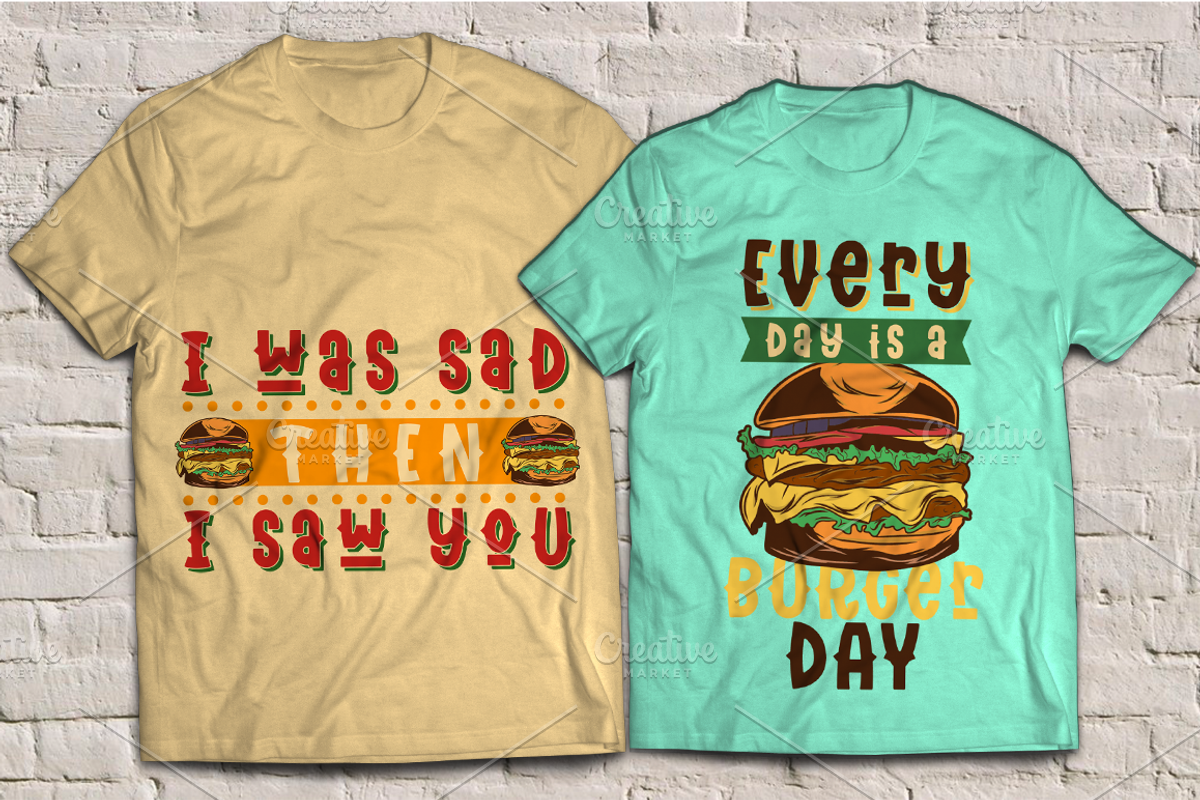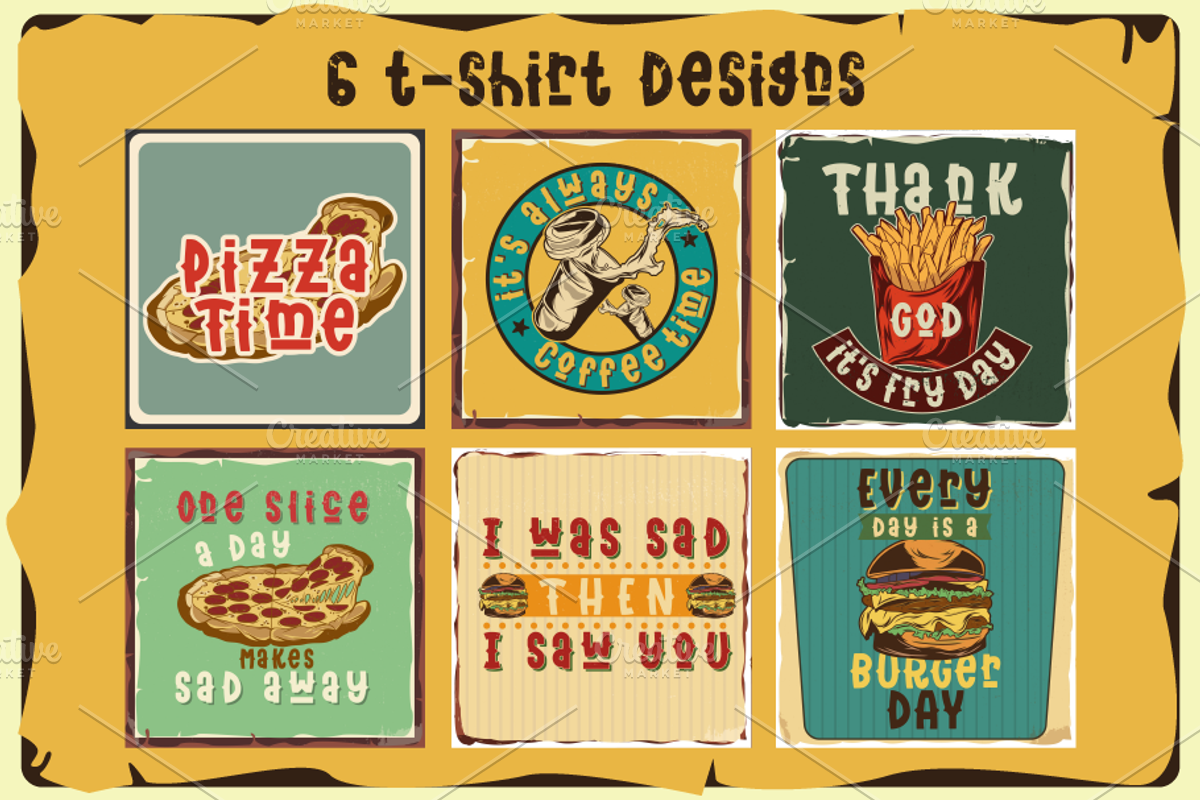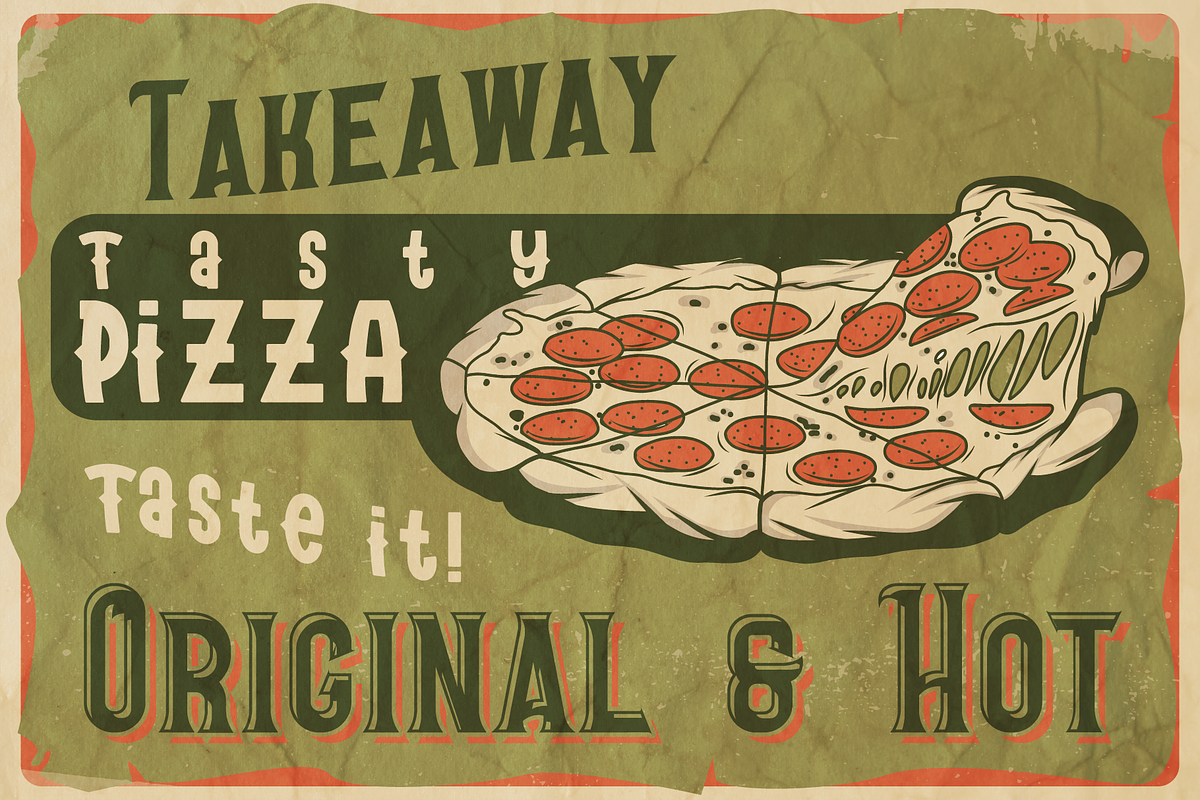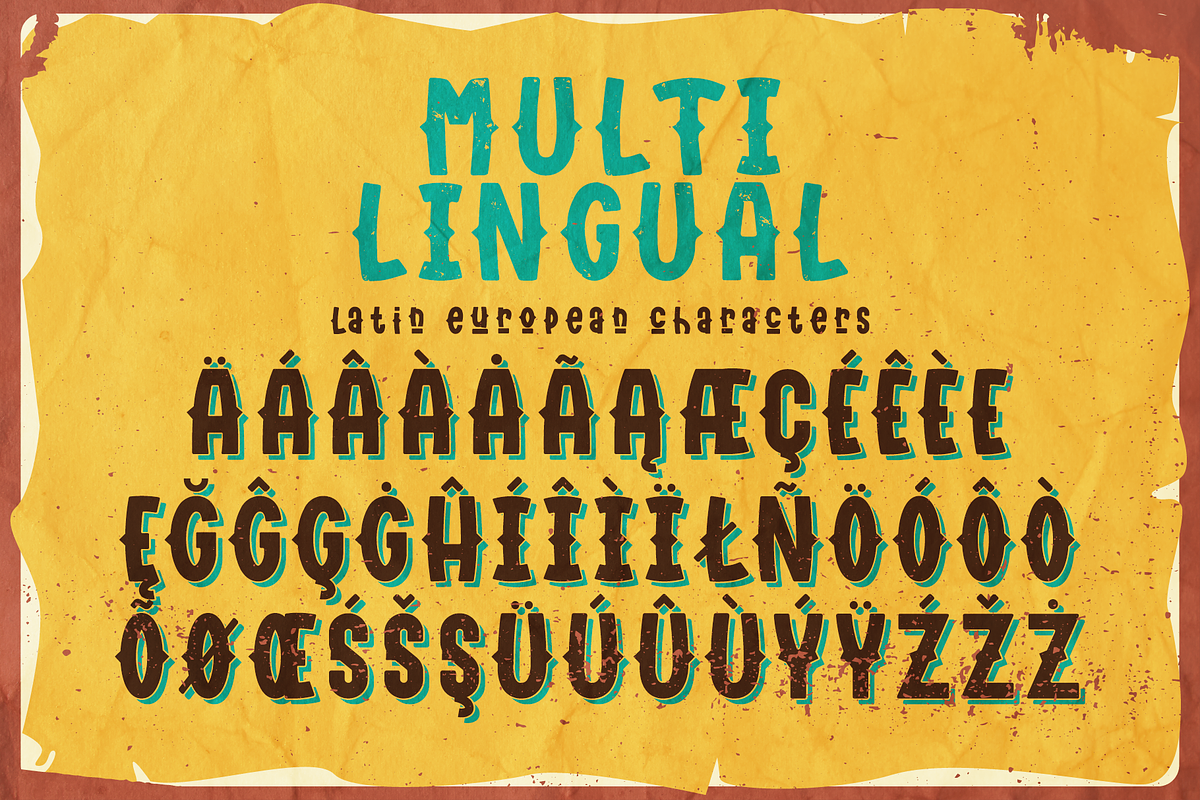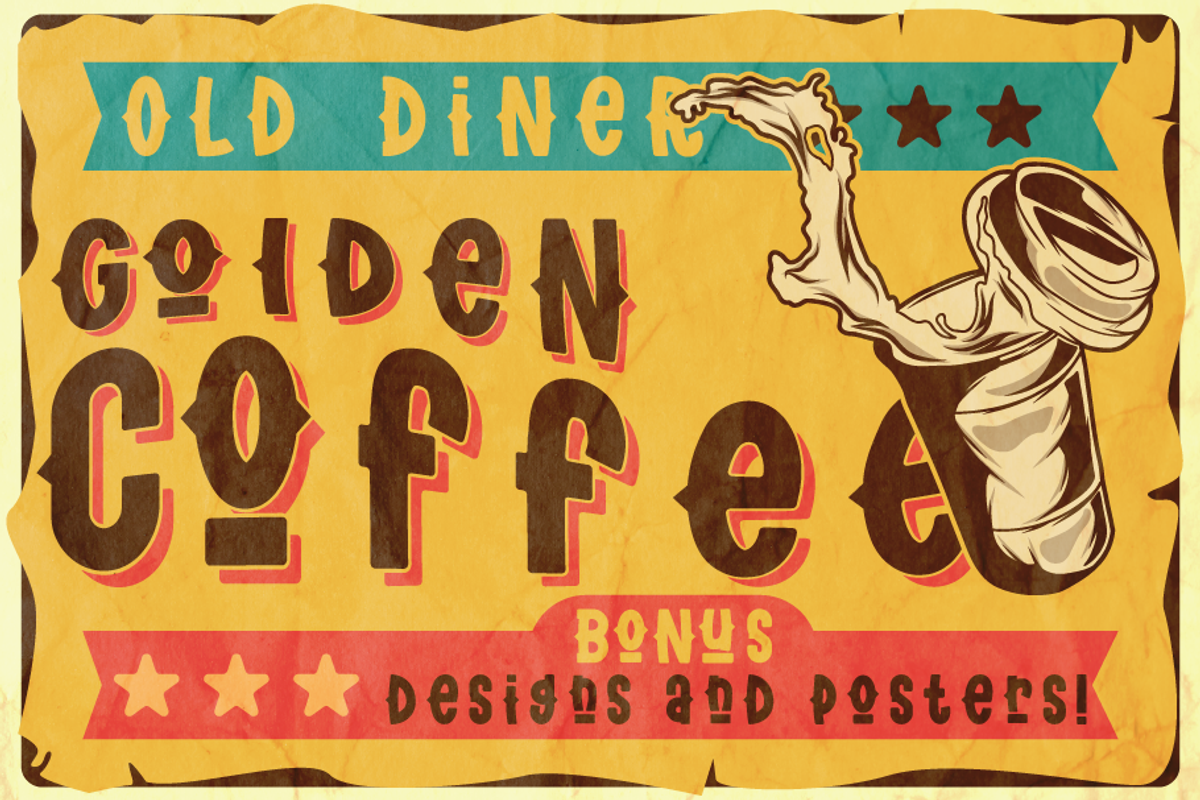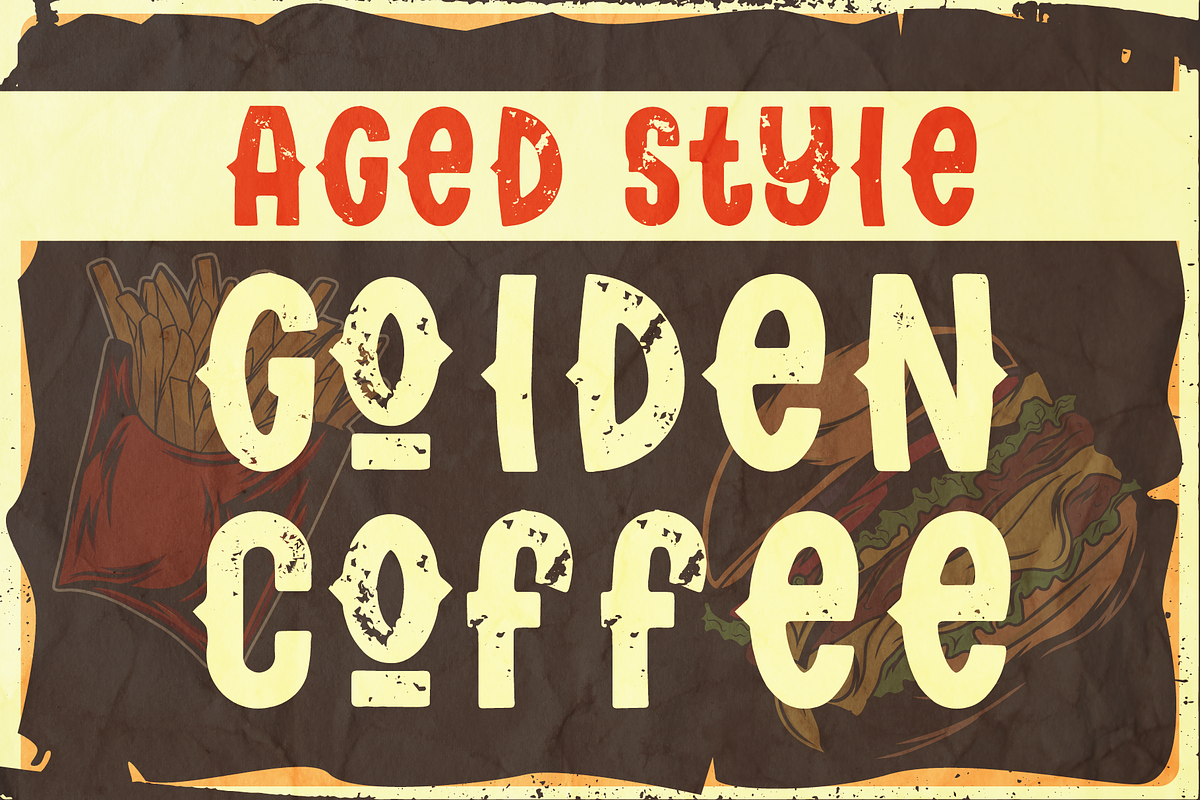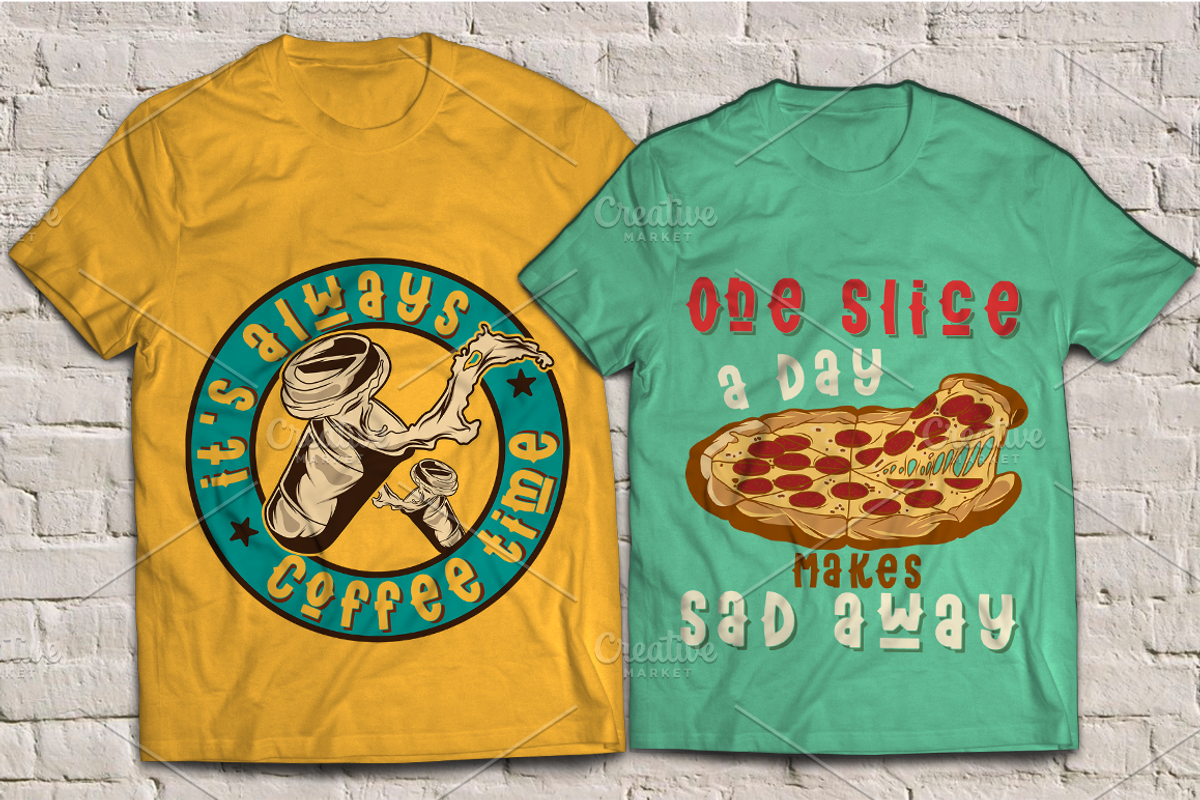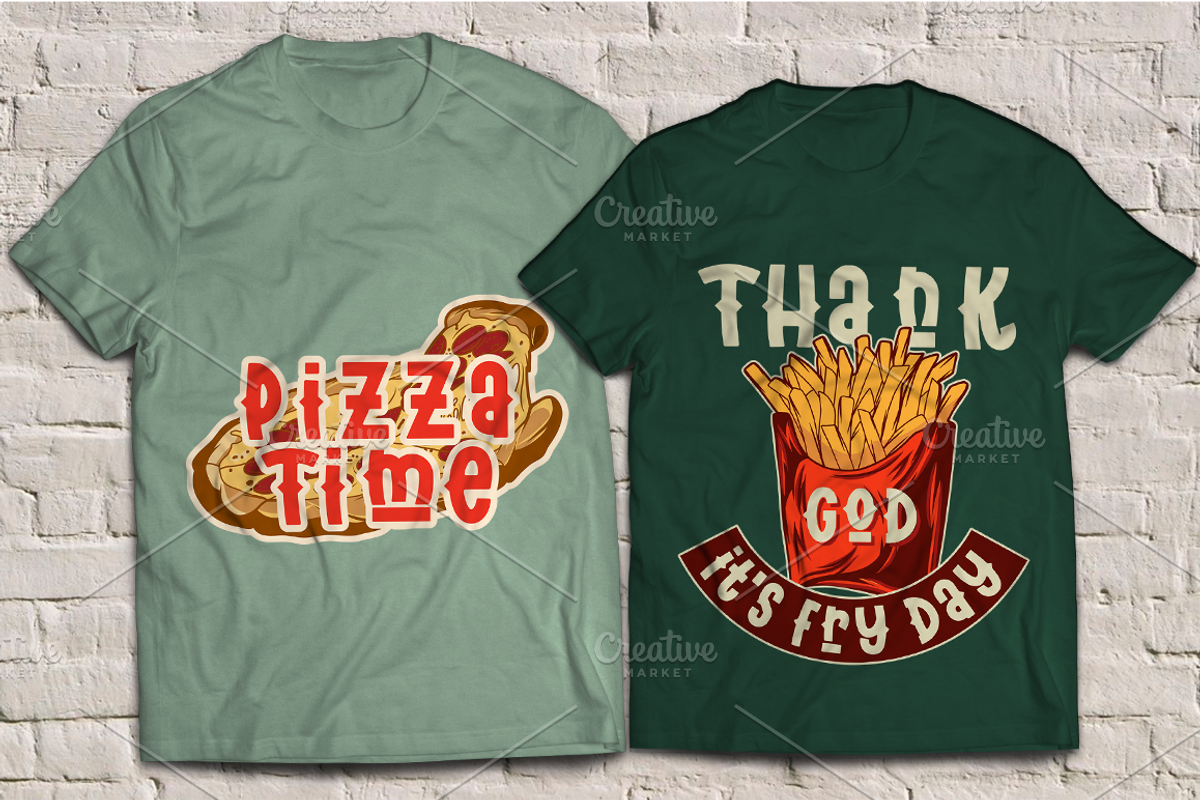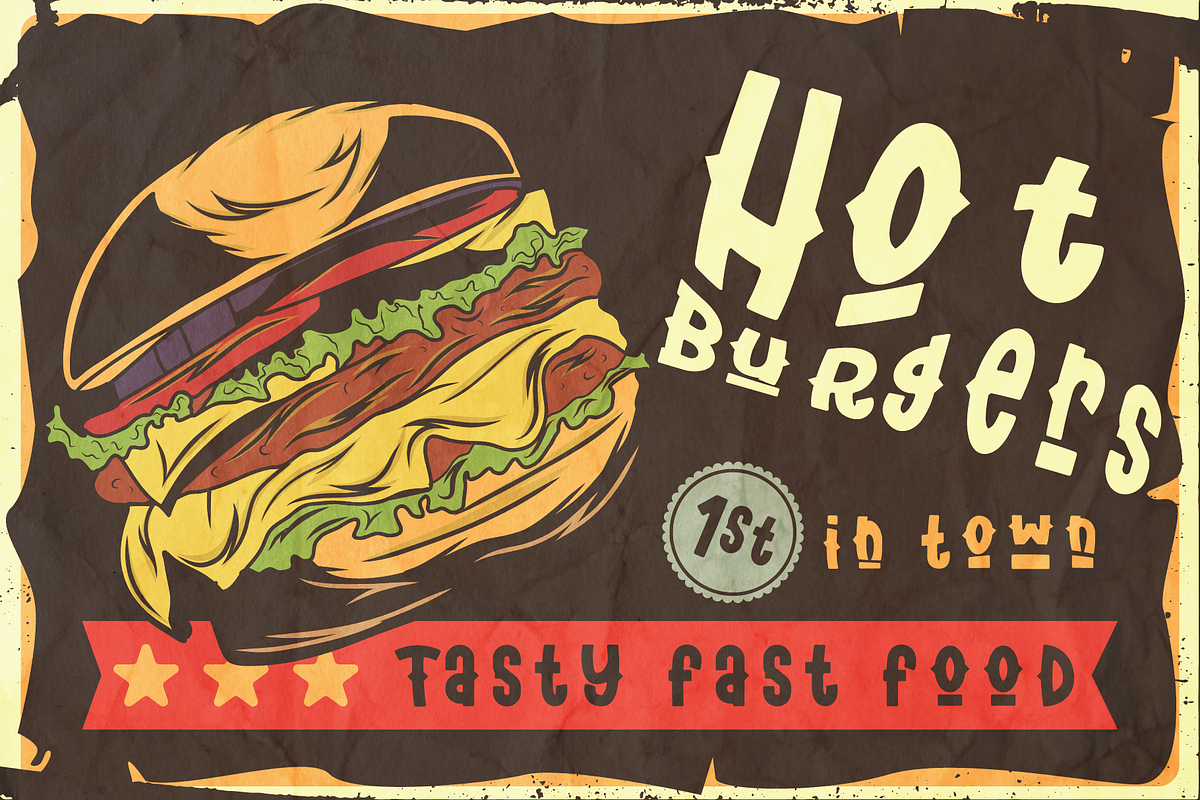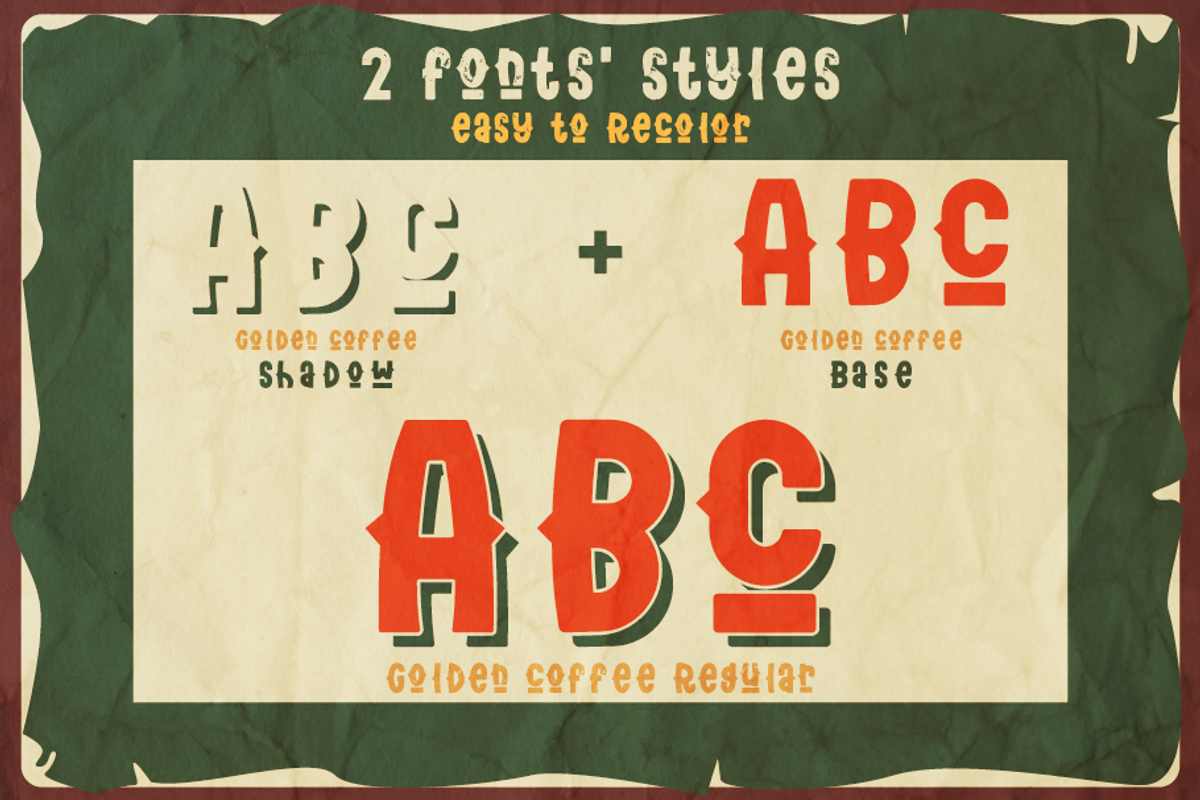
Golden coffee font, posters&designs
Introducing my newest font called "Golden coffee". It has wide language support of multilingual characters (check out all available characters in previews). Bonus 6 t-shirt designs and 2 big posters. This font will look good on any vintage-styled designs like a poster, T-shirt, label, logo, etc.
- A lot of additional symbols, alternative characters, and multilingual support.
You can use the font and the elements of the set for the creation of any design for your purposes with minimal loss of time. The designs can be used for patches, labels, badges, signs, symbols, stickers, cups, pins, bags, caps, apparel, products for men, packaging design, and much more.
The old-school style badges will be suitable for the creation of promotional materials for the advertisement of companies, events, clubs, stores, shops etc.